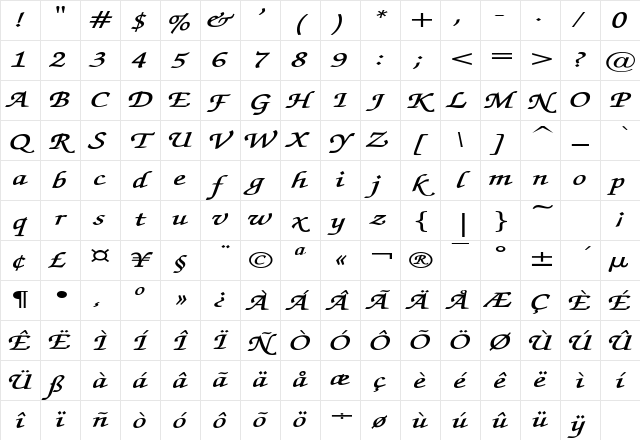
Complete ExchequerScriptExtended Bold glyph index. Displaying only characters natively supported by ExchequerScriptExtended Bold font.
ExchequerScriptExtended flows with the natural rhythm of handwritten lettering, making it ideal for designs that call for warmth and personal expression. Its bold stroke weight gives it real presence on the page.
Font Pairing: Combine ExchequerScriptExtended with a simple geometric sans for maximum contrast - the tension between flowing curves and clean structure is a classic typographic pairing.
Pro Tip: Use ExchequerScriptExtended for short runs of text - names, titles, or taglines. Extended body copy in script faces tires the eye quickly.